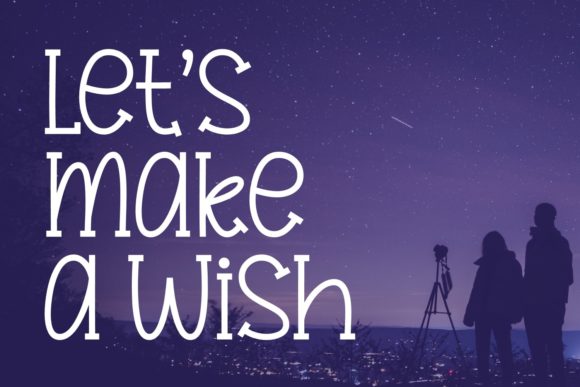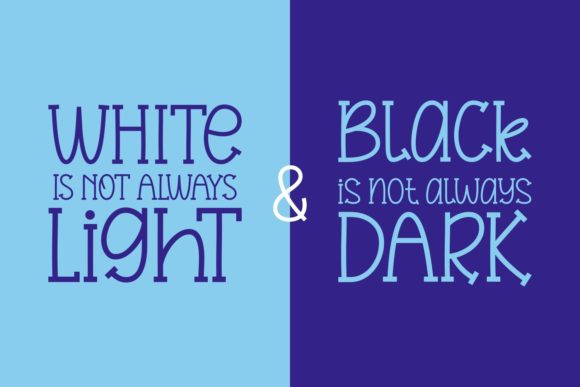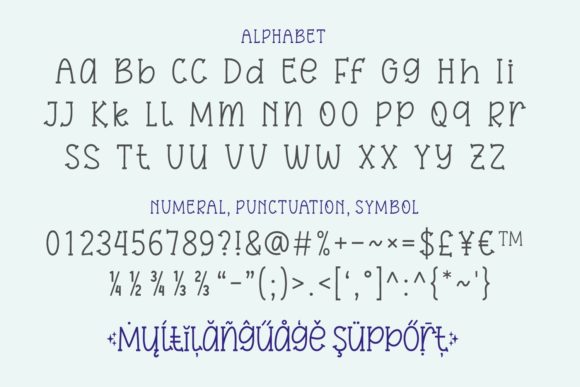
About Tonight Dream Font
Tonight Dream font is the perfect font to use when you want to add a personal feeling to your creative projects. With its cute, typewriter type of style, it will add a playful yet professional feeling to any projects.